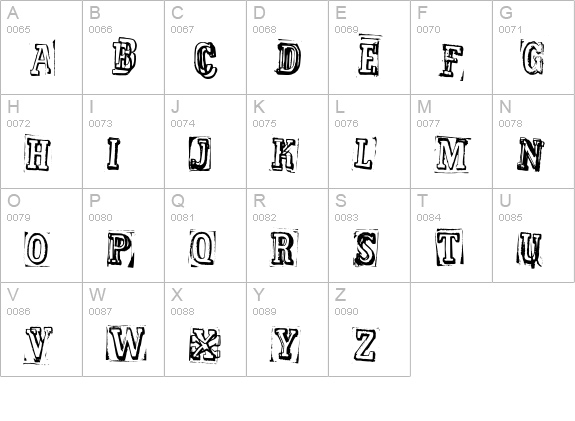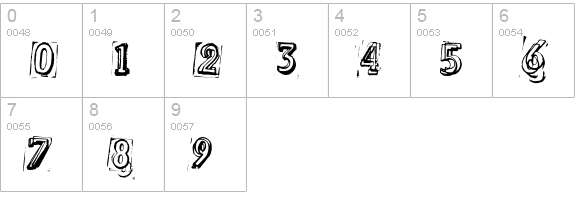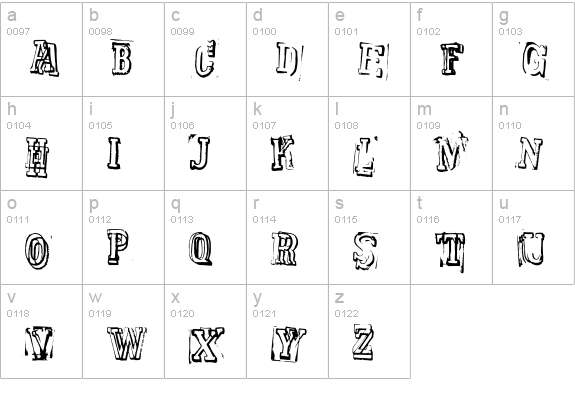
SuperiorSmudged Font Details
SuperiorSmudged font is a unique and artistic typeface that exudes a sense of creativity and individuality. The irregular smudged edges give it a handcrafted and organic feel, perfect for adding a touch of character to your designs. This font is versatile and can be used for a variety of projects such as branding, posters, packaging, and more. What's even better is that SuperiorSmudged font is available for free download at FontsMarket.com. Whether you're a designer looking to experiment with a new style or a creative looking to add a personal touch to your projects, this font is a great choice. Don't miss out on the opportunity to enhance your designs with the unique charm of SuperiorSmudged font - download it for free today!